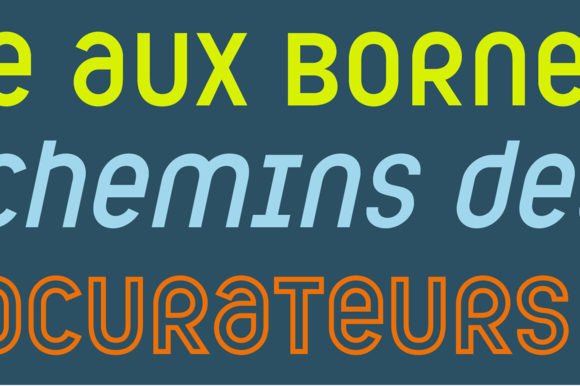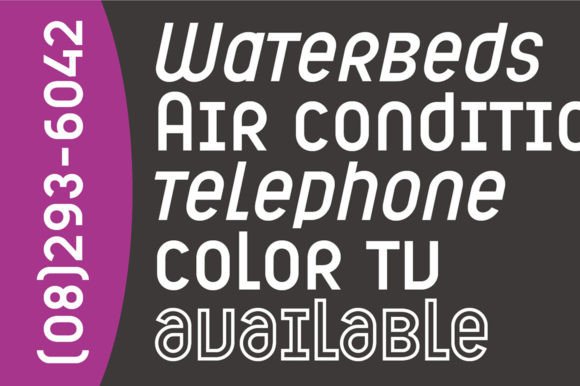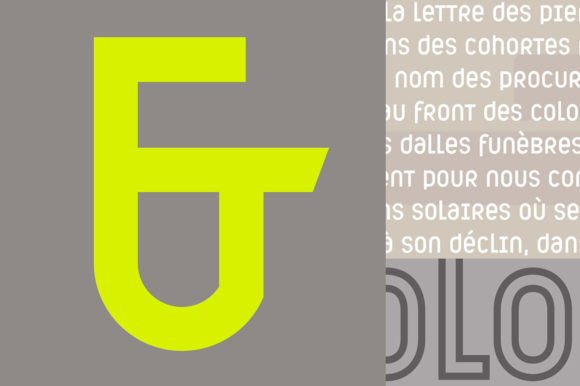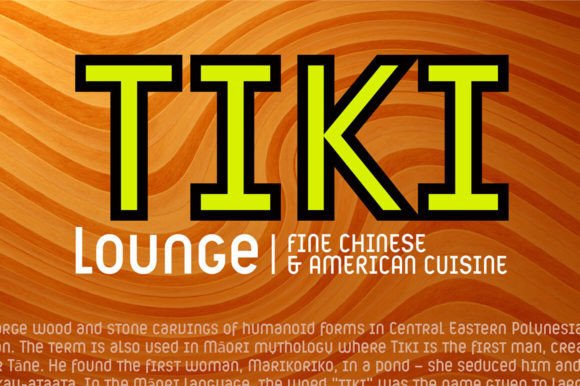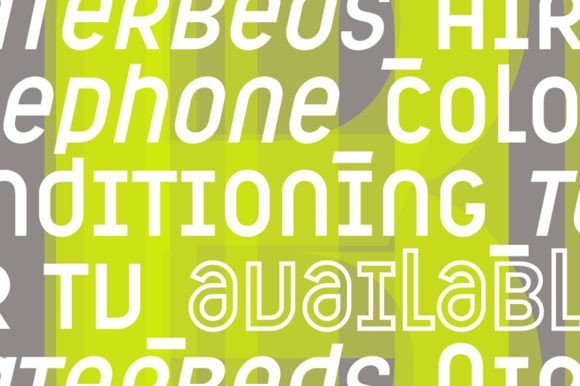
Introducing Ambule Font: A Revolutionary Hybrid Typeface
In the world of typography, innovation is key to standing out in a crowded design landscape. The Ambule font is a testament to this, born from the fusion of two iconic typefaces, Huxley Vertical and Peignot. This captivating cap/lowercase hybrid font design brings together the best of both worlds, resulting in a unique and visually striking typographic solution.
The Genesis of Ambule
The Ambule font draws inspiration from the distinct characteristics of Huxley Vertical and Peignot, two typefaces renowned for their elegance and sophistication. Huxley Vertical, with its sleek and modern aesthetic, brings a sense of luxury and refinement to the table. Peignot, on the other hand, is celebrated for its avant-garde and artistic vibe. By merging these two styles, Ambule showcases a stylized blend of elements that set it apart from other font designs.
Design Philosophy
Ambule’s design philosophy revolves around balance, readability, and versatility. With meticulous attention to detail, this font is crafted to offer a clean and straightforward design that ensures readability and impact across various text and display applications. Its balanced proportions and refined aesthetics make it equally effective for conveying messages in both small and large settings, from body text to headlines and titles.
Key Features of Ambule Font
- Hybrid Design: Ambule seamlessly merges the characteristics of Huxley Vertical and Peignot, resulting in a unique and captivating font design.
- Clean and Straightforward: The font’s design ensures clarity and readability, making it suitable for a wide range of applications.
- Balanced Proportions: Ambule’s balanced proportions enable it to perform well in both small and large settings, from body text to display applications.
- Refined Aesthetics: The font’s refined aesthetics bring a touch of sophistication and elegance to any design.
- Versatile: Ambule’s versatility makes it an excellent choice for various design projects, from branding and advertising to publishing and digital media.
Applications of Ambule Font
Ambule’s versatility and refined aesthetics make it an excellent choice for a wide range of design applications, including:
- Branding and Identity: Create a lasting impression with Ambule’s unique and captivating design.
- Advertising and Marketing: Use Ambule to craft compelling headlines and titles that grab attention.
- Publishing and Editorial: Enhance your publications with Ambule’s clean and readable design.
- Digital Media: Ambule’s versatility makes it suitable for various digital applications, from websites and mobile apps to social media and email marketing.
Why Choose Ambule Font?
In a world where typography plays a crucial role in design, Ambule font offers a unique and innovative solution. Its captivating design, balanced proportions, and refined aesthetics make it an excellent choice for designers and crafters looking to elevate their designs. With Ambule, you can:
- Stand Out: Create designs that stand out from the crowd with Ambule’s unique and captivating design.
- Enhance Readability: Improve readability and comprehension with Ambule’s clean and straightforward design.
- Elevate Your Brand: Use Ambule to create a lasting impression and elevate your brand’s visual identity.
Ambule font is a revolutionary hybrid typeface that brings together the best of Huxley Vertical and Peignot. With its captivating design, balanced proportions, and refined aesthetics, Ambule offers a versatile and visually striking typographic solution for designers and crafters. Whether you’re working on branding, advertising, publishing, or digital media, Ambule is an excellent choice for elevating your designs and making a lasting impression.